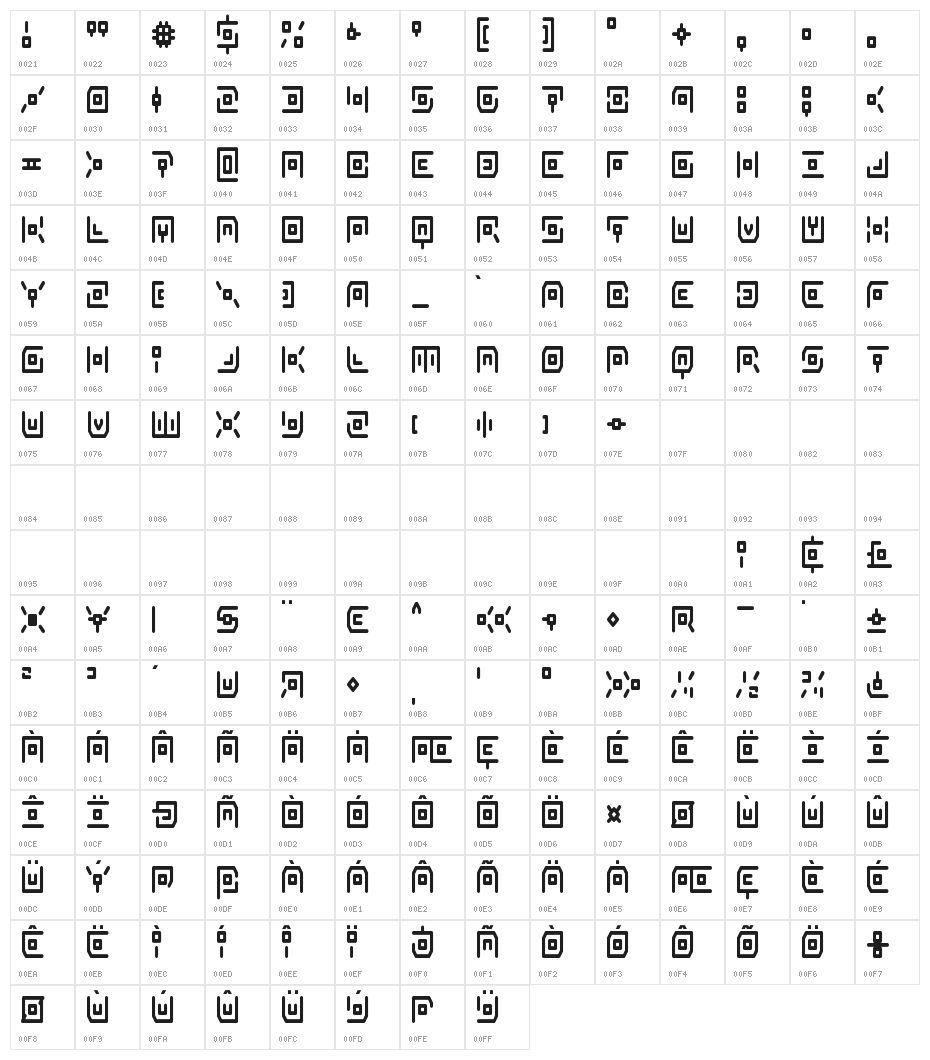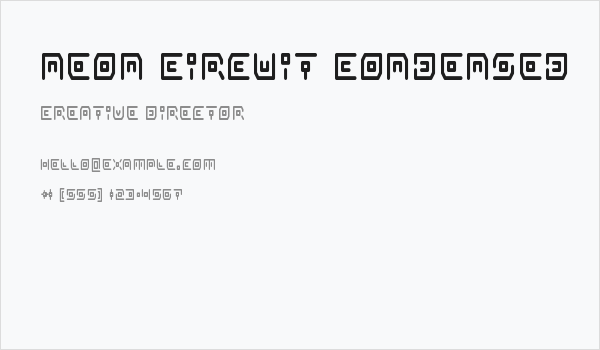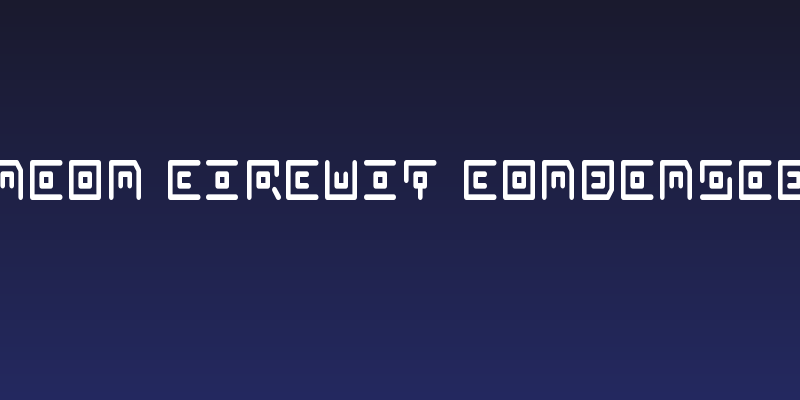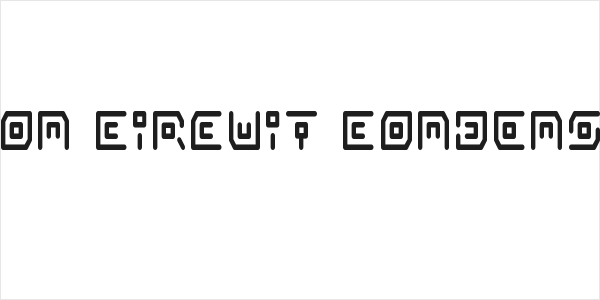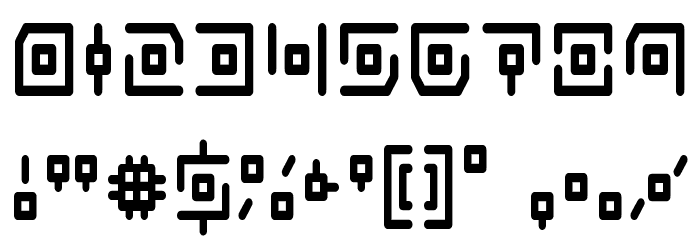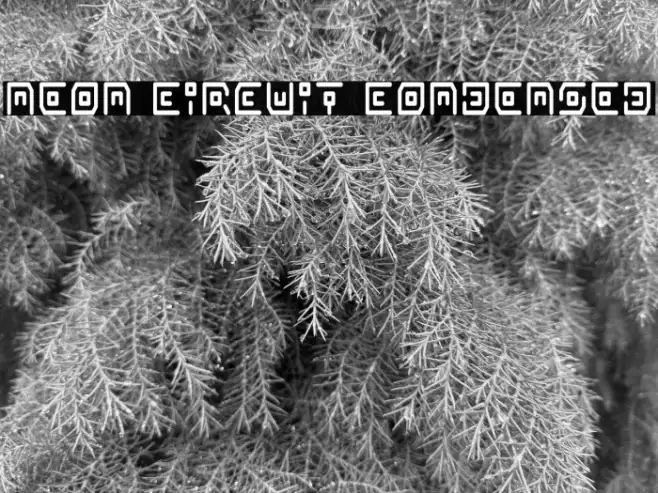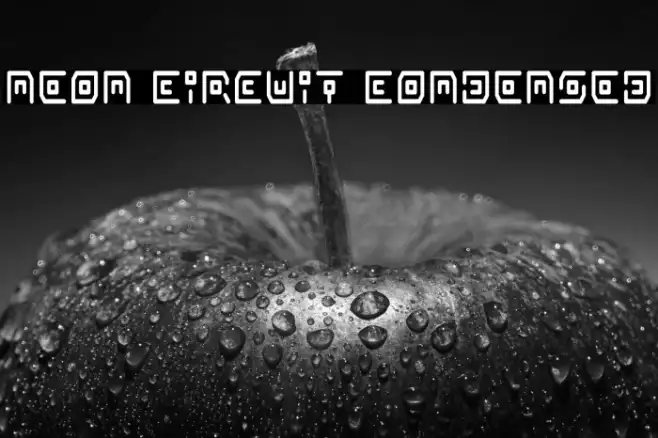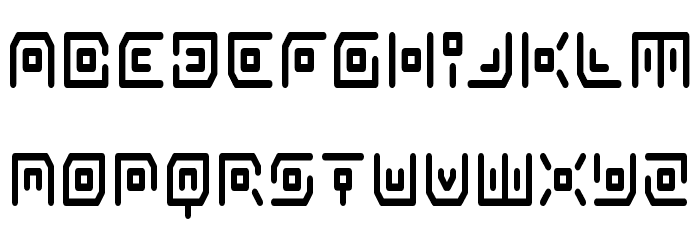
Neon Circuit Condensed Font
Neon Circuit Condensed Description
This font features a futuristic and digital aesthetic, reminiscent of neon lights and circuit board patterns. The characters are designed with a geometric, block-like structure, incorporating rounded edges and sharp angles that create a sense of movement and energy. The condensed form of the letters allows for efficient use of space, making it suitable for modern and tech-oriented designs. The font maintains a consistent stroke width, contributing to a clean and uniform appearance. Its unique style is both eye-catching and functional, ideal for projects that require a contemporary and innovative look.